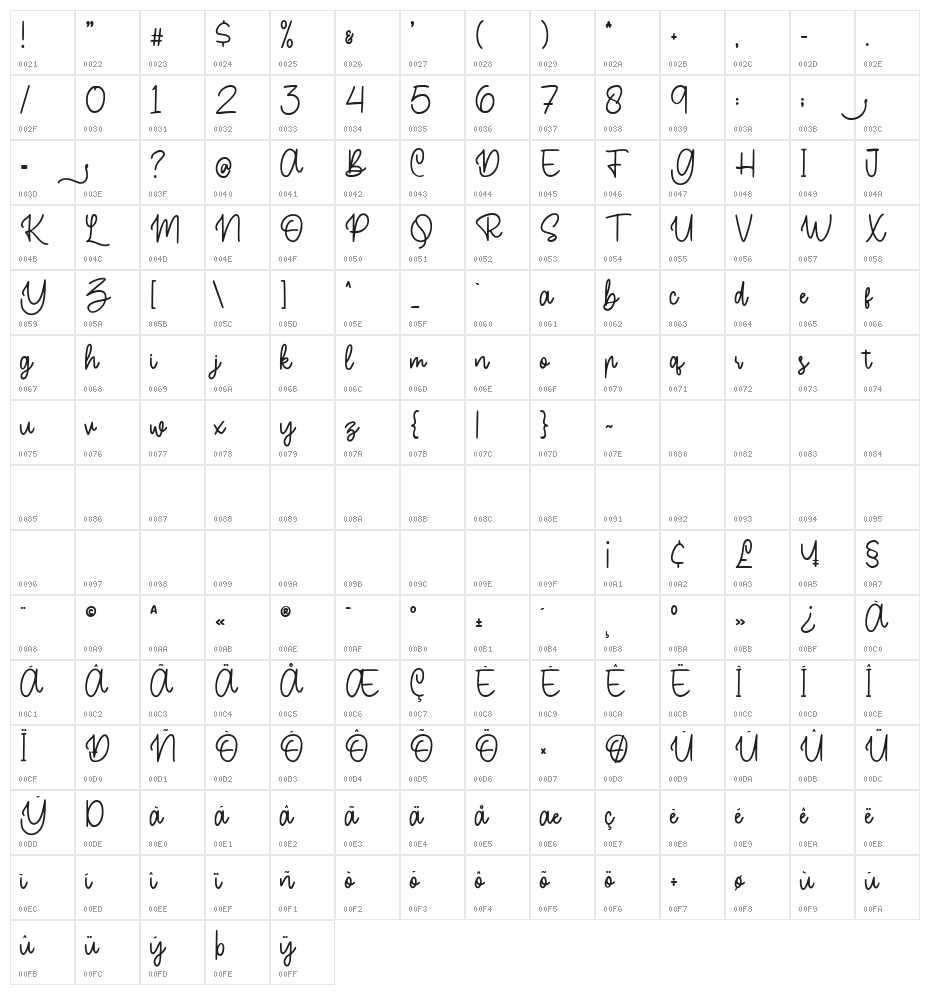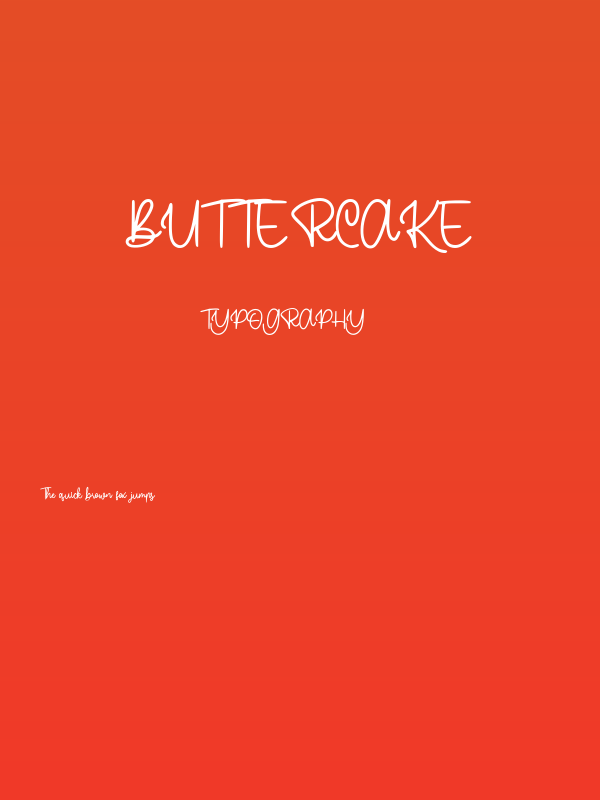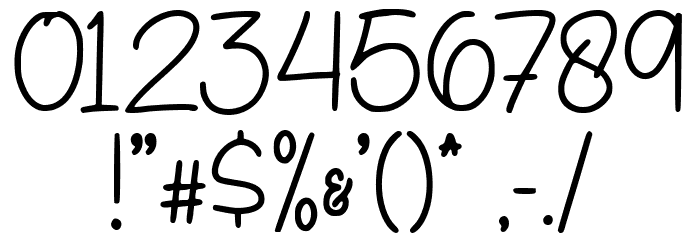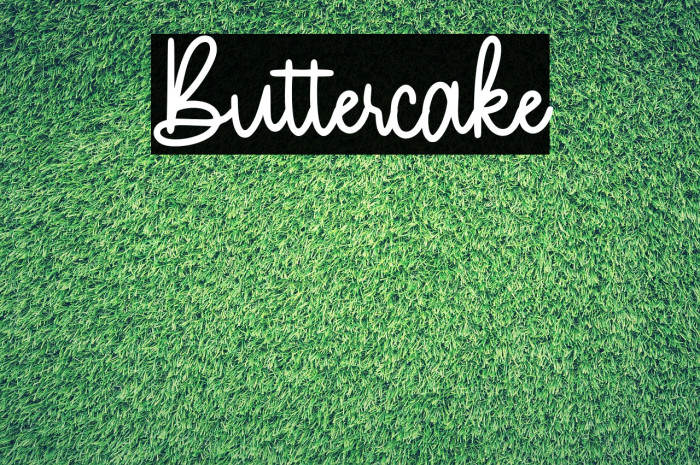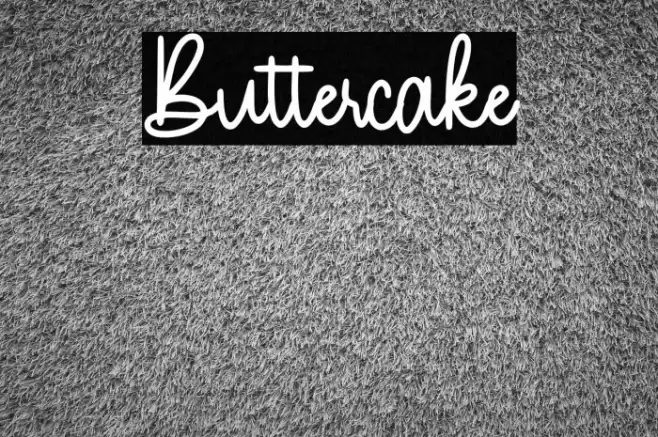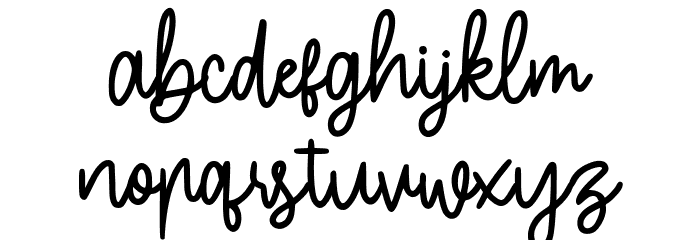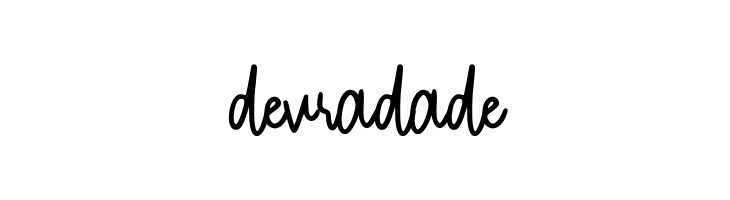
Buttercake Font
Buttercake Description
This font features a playful and casual handwritten style, characterized by its smooth, flowing lines and rounded edges. The uppercase letters are bold and slightly whimsical, with a consistent stroke width that adds to its approachable feel. The lowercase letters maintain the same playful aesthetic, with a slightly more compact form. Numbers are clear and easy to read, matching the overall style of the alphabet. Special characters are well-integrated, maintaining the font's cohesive look. This font is ideal for projects that require a friendly and informal touch, such as invitations, greeting cards, or personal branding.
| Overall Style | Casual |
| Use Case | Headlines, Logos, Invitations |
| Proposed Projects | Ideal for invitations, greeting cards, personal branding, and casual designs. |